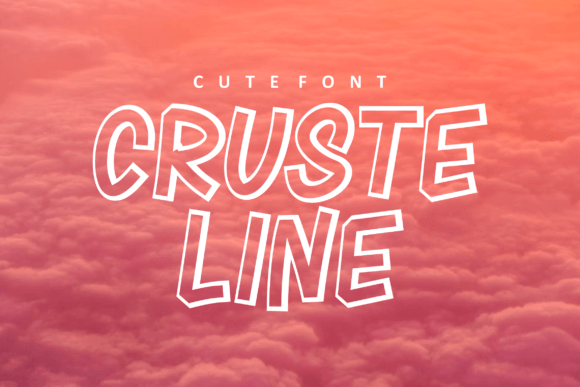
Cruste Line: A Joyful Font for Creative Expression
When it comes to typography, the right font can make all the difference in conveying a message or setting the tone of a design. Cruste Line is a display font that brings a unique blend of fun and friendliness to any project. With its playful curves and whimsical style, Cruste Line is ideal for a wide range of creative applications. Whether you're designing for children, crafting a brand identity, or simply looking to add a touch of joy to your work, this font has something to offer.
What Is Cruste Line?
Cruste Line is a display font designed with a focus on visual appeal and emotional resonance. It features soft, rounded edges and a hand-drawn aesthetic that gives it a warm and inviting feel. This font is particularly well-suited for projects that aim to evoke a sense of lightheartedness or nostalgia. Its name, "Cruste Line," suggests a line that is both delicate and expressive, capturing the essence of creativity and imagination.
The font's design elements are carefully crafted to ensure readability while maintaining a distinct personality. Each character is styled with attention to detail, making Cruste Line stand out in a crowd of more conventional typefaces. Its versatility allows it to be used in various contexts, from digital media to print, without losing its charm.
Key Features of Cruste Line
One of the standout features of Cruste Line is its ability to convey emotion through typography. The font's unique shapes and spacing create a sense of movement and energy, making it ideal for designs that require a lively or dynamic feel. Additionally, Cruste Line is available in multiple weights and styles, giving designers the flexibility to choose the perfect variant for their needs.
Another notable characteristic of Cruste Line is its adaptability. Whether you're working on a logo, a poster, or a book cover, this font can be tailored to fit different artistic visions. Its friendly appearance makes it especially appealing for projects targeting younger audiences or those seeking a more approachable look.
Furthermore, Cruste Line is optimized for both digital and print use. Its clean lines and consistent proportions ensure that it looks great on screens and in physical formats. This makes it a practical choice for creators who need a font that performs well across different mediums.
Who Can Benefit From Using Cruste Line?
Cruste Line is a valuable tool for a variety of users, including graphic designers, illustrators, and content creators. For professionals in the creative industry, this font offers a fresh and original option that can elevate their work. It's also a great choice for small business owners looking to establish a unique brand identity.
Parents and educators may find Cruste Line useful for creating educational materials, such as flashcards, worksheets, or classroom decorations. Its playful style can engage children and make learning more enjoyable. Similarly, game developers and cartoon artists can use Cruste Line to enhance the visual appeal of their projects, adding a touch of fun and creativity.
Real-World Applications of Cruste Line
There are countless ways to incorporate Cruste Line into your work. For example, a children's book publisher might use this font for title pages and chapter headings to create a more engaging reading experience. A local bakery could use Cruste Line in its signage to give a friendly and inviting atmosphere.
Event planners often use display fonts like Cruste Line to design invitations and promotional materials. Its cheerful appearance can help set the tone for parties, festivals, or community events. Additionally, social media managers might use Cruste Line in graphics to catch the attention of their audience and convey a positive message.
Even in more serious contexts, such as branding or marketing campaigns, Cruste Line can be used strategically to add a human element. By balancing professionalism with a touch of playfulness, this font can help brands connect with their target audience in a more meaningful way.
Strengths and Considerations
One of the main strengths of Cruste Line is its ability to capture attention and evoke emotion. Its distinctive style makes it memorable and effective for projects that require a strong visual identity. However, it's important to note that display fonts like Cruste Line may not be suitable for long blocks of text due to potential readability issues.
When using Cruste Line, it's essential to consider the context and audience. While it works well for titles, headings, and short phrases, it may not be the best choice for body text. Designers should also be mindful of the overall composition and ensure that the font complements other elements of their work.
Additionally, users should evaluate their specific needs before choosing Cruste Line. If the goal is to create a professional or formal design, alternative fonts may be more appropriate. However, for projects that benefit from a friendly and expressive tone, Cruste Line can be an excellent choice.
Ultimately, the decision to use Cruste Line should be based on its ability to enhance the overall message and aesthetics of the project. By understanding the font's strengths and limitations, users can make informed choices that lead to successful outcomes.